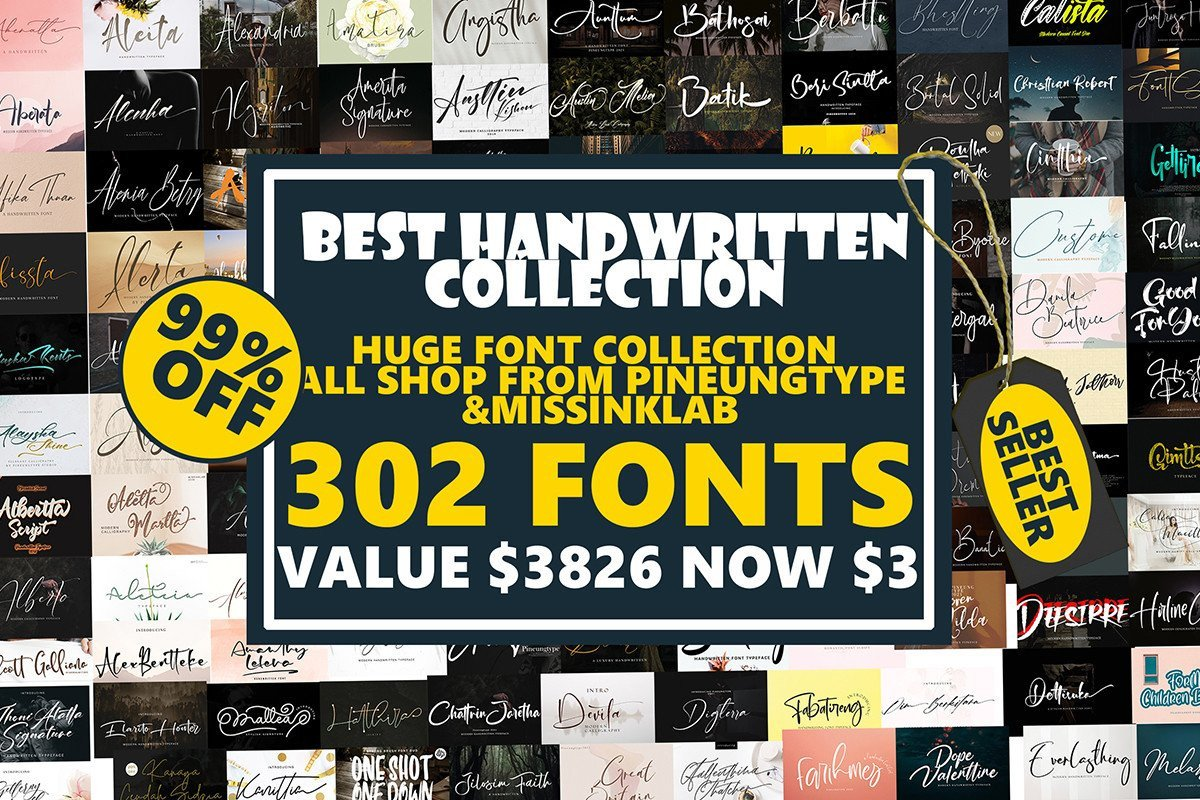
302 Fonts All in Collection - Valued $3,800
Introducing, the 302 Fonts All In Collection! This massive font bundle features 302 fonts, valued at over $3,800, featuring the entire font collection from designers MissinkLab Studio and Pineungtype fonts. You will receive an amazing mix of beautiful script and handwritten fonts, all come in both TTF and OTF file formats.